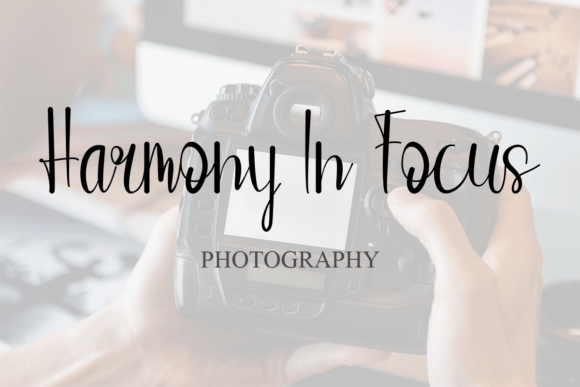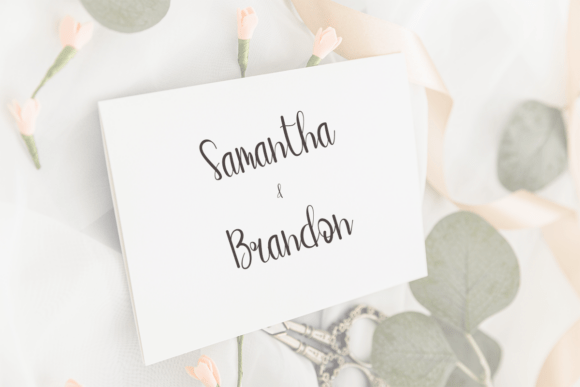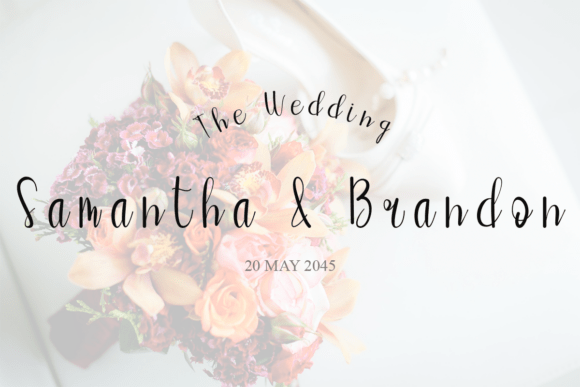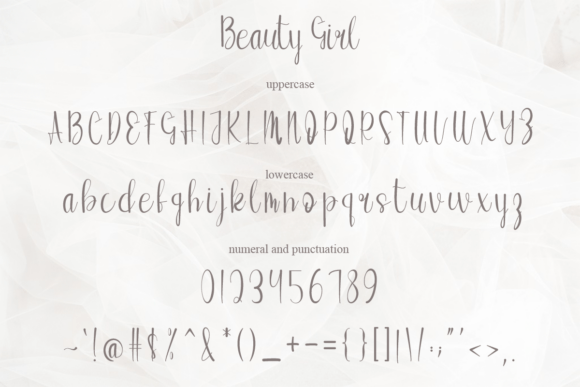
Introducing Beauty Girl Font: Elevate Your Designs with Elegance and Femininity
In the world of typography, few fonts capture the essence of elegance and femininity as beautifully as the Beauty Girl Font. This stunning script font is designed to add a touch of sophistication and romance to any creative project. With its delicate, handwritten touch and smooth curves, Beauty Girl is the perfect choice for designers and crafters looking to create breathtaking wedding invitations, branding materials, fashion projects, and romantic designs.
The Beauty of Modern Calligraphy
Beauty Girl Font boasts a modern calligraphy style that exudes a soft, stylish charm. Its elegant letterforms are carefully crafted to convey a sense of luxury and refinement, making it an ideal choice for high-end designs. Whether you’re creating wedding stationery, fashion branding, or simply want to add a touch of elegance to your digital designs, Beauty Girl Font is sure to impress.
Key Features of Beauty Girl Font
- Elegant and Feminine: Beauty Girl Font features a delicate, handwritten touch that adds a touch of femininity to any design.
- Smooth Curves: The font’s smooth curves and flowing lines create a sense of elegance and sophistication.
- Graceful Letterforms: Each letterform is carefully crafted to convey a sense of luxury and refinement.
- Modern Calligraphy Style: Beauty Girl Font boasts a modern calligraphy style that adds a soft, stylish charm to any design.
- Versatile: This font is perfect for a wide range of design projects, including wedding invitations, branding, fashion projects, and romantic designs.
Perfect for Wedding and Fashion Designs
Beauty Girl Font is particularly well-suited for wedding and fashion designs. Its elegant and feminine style makes it perfect for creating stunning wedding invitations, save-the-date cards, and other wedding stationery. For fashion designers, this font is ideal for creating luxurious branding materials, such as logos, business cards, and packaging.
Tips for Using Beauty Girl Font
To get the most out of Beauty Girl Font, here are a few tips to keep in mind:
- Pair with Neutral Backgrounds: Beauty Girl Font looks stunning on neutral backgrounds, such as white, cream, or light gray.
- Experiment with Colors: Try pairing Beauty Girl Font with pastel colors, metallic accents, or rich jewel tones to add depth and interest to your designs.
- Use for Headlines and Titles: Beauty Girl Font is perfect for headlines and titles, but can also be used for body copy and descriptions.
- Add Decorative Elements: Consider adding decorative elements, such as flowers, greenery, or illustrations, to enhance the romantic and feminine feel of your designs.
In conclusion, Beauty Girl Font is a stunning script font that is sure to elevate your designs with its elegance and femininity. With its delicate, handwritten touch and modern calligraphy style, this font is perfect for designers and crafters looking to create breathtaking wedding invitations, branding materials, fashion projects, and romantic designs. Whether you’re a seasoned designer or just starting out, Beauty Girl Font is a must-have addition to your typography collection.